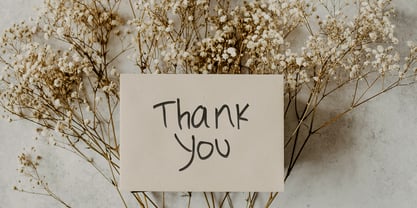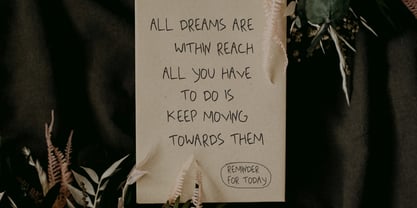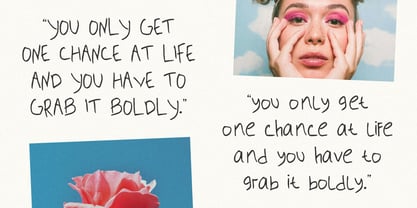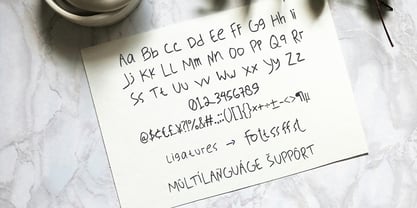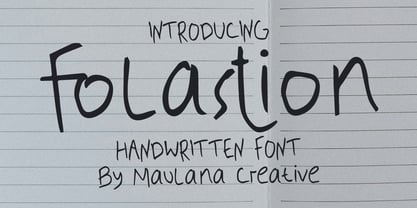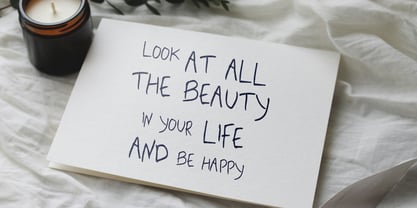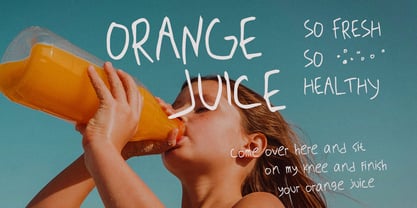
MC Folastion
von Maulana Creative
Die Schriftfamilie MC Folastion wurde von Gilang Maulana entworfen und von Maulana Creative veröffentlicht. MC Folastion enthält 1 Stile. Mehr über diese Familie
Give your designs an authentic handcrafted feel. “Folastion Story Handwritten Font” is perfectly suited to stationery, logos and much more. Include ligature characters.
Designer: Gilang Maulana
Foundry: Maulana Creative